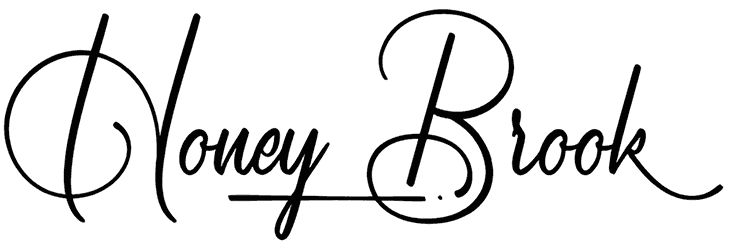
Honey Brook Font
Are you craving to add your own personal signature to graphic content? So, a script font such as Honey Brook would be best for projects like posters, logos, website headers, magazines, and gift cards. Although this calligraphy font doesn’t contain numbers and punctuations, its crooked and elongated edges help you to establish the feeling of personalization, dynamism, drama, and dreaminess.